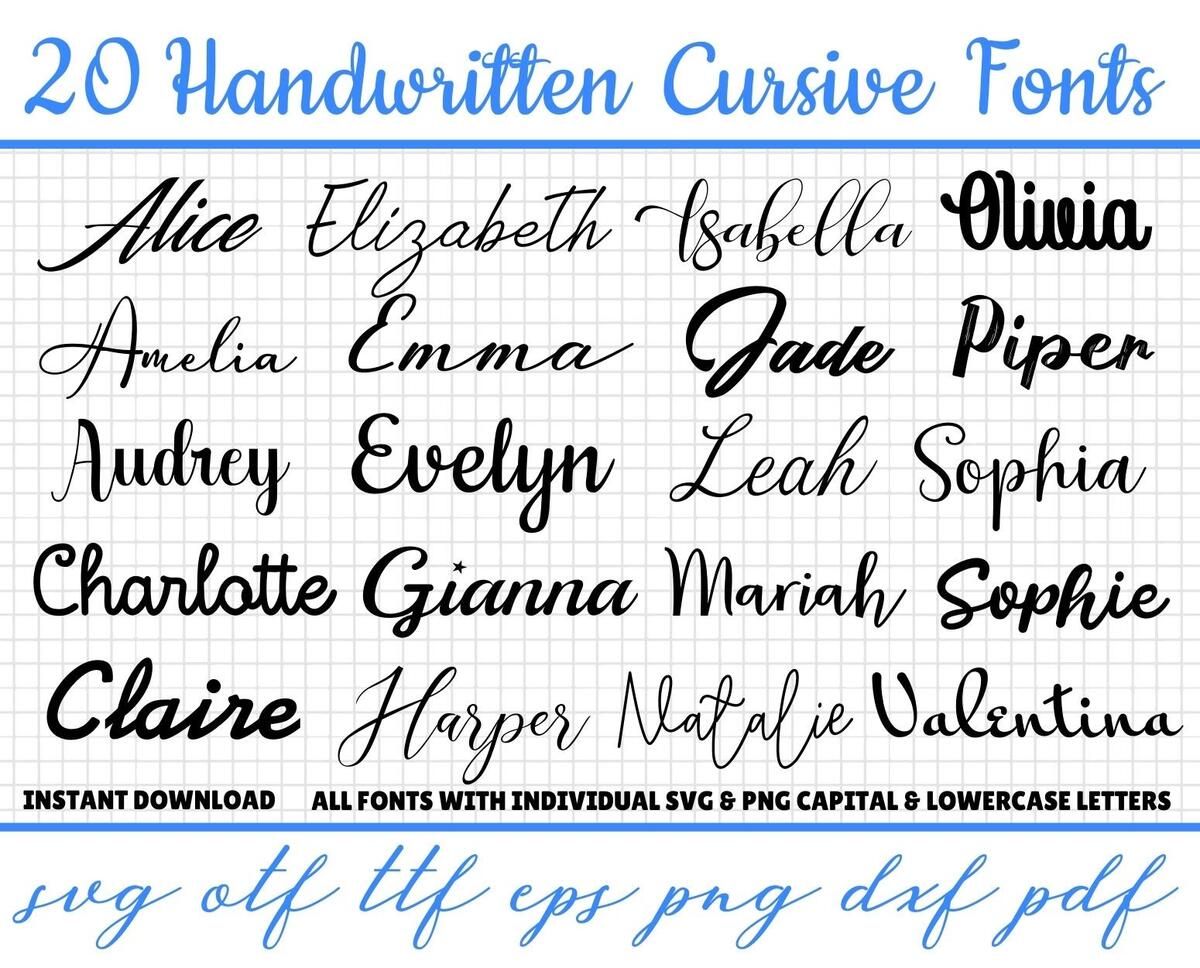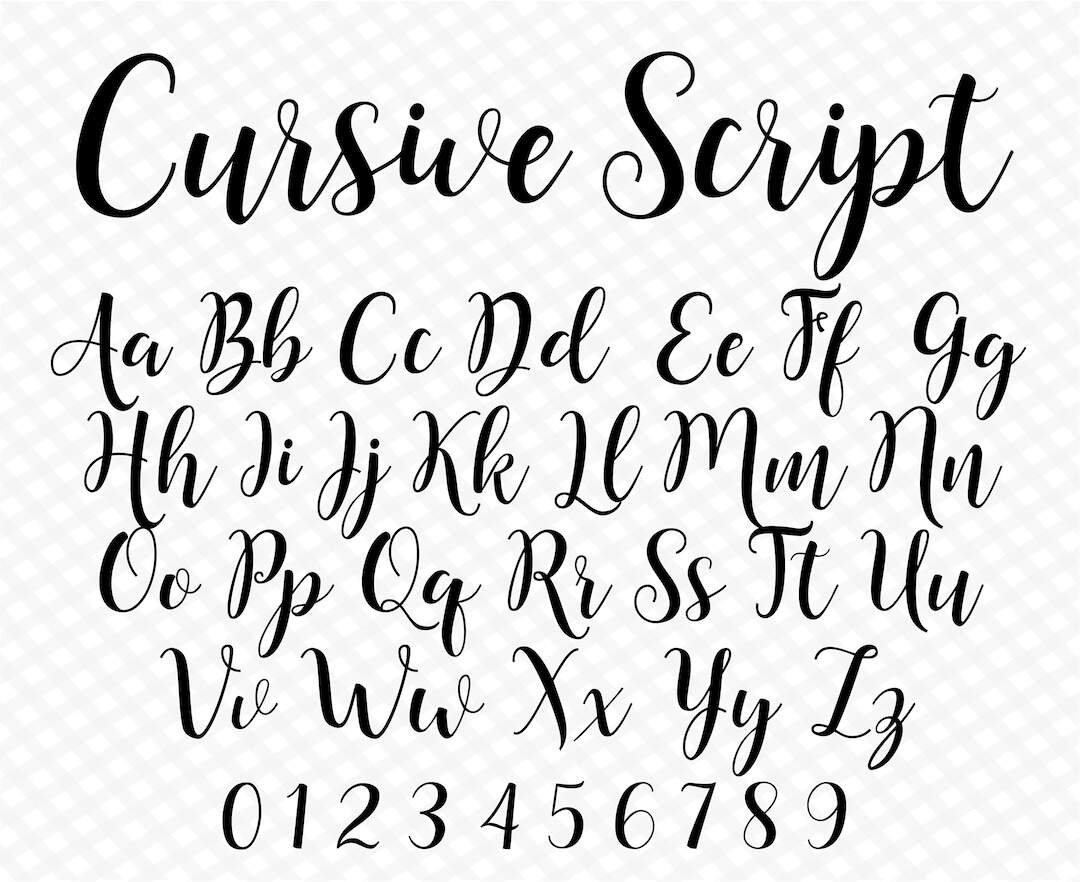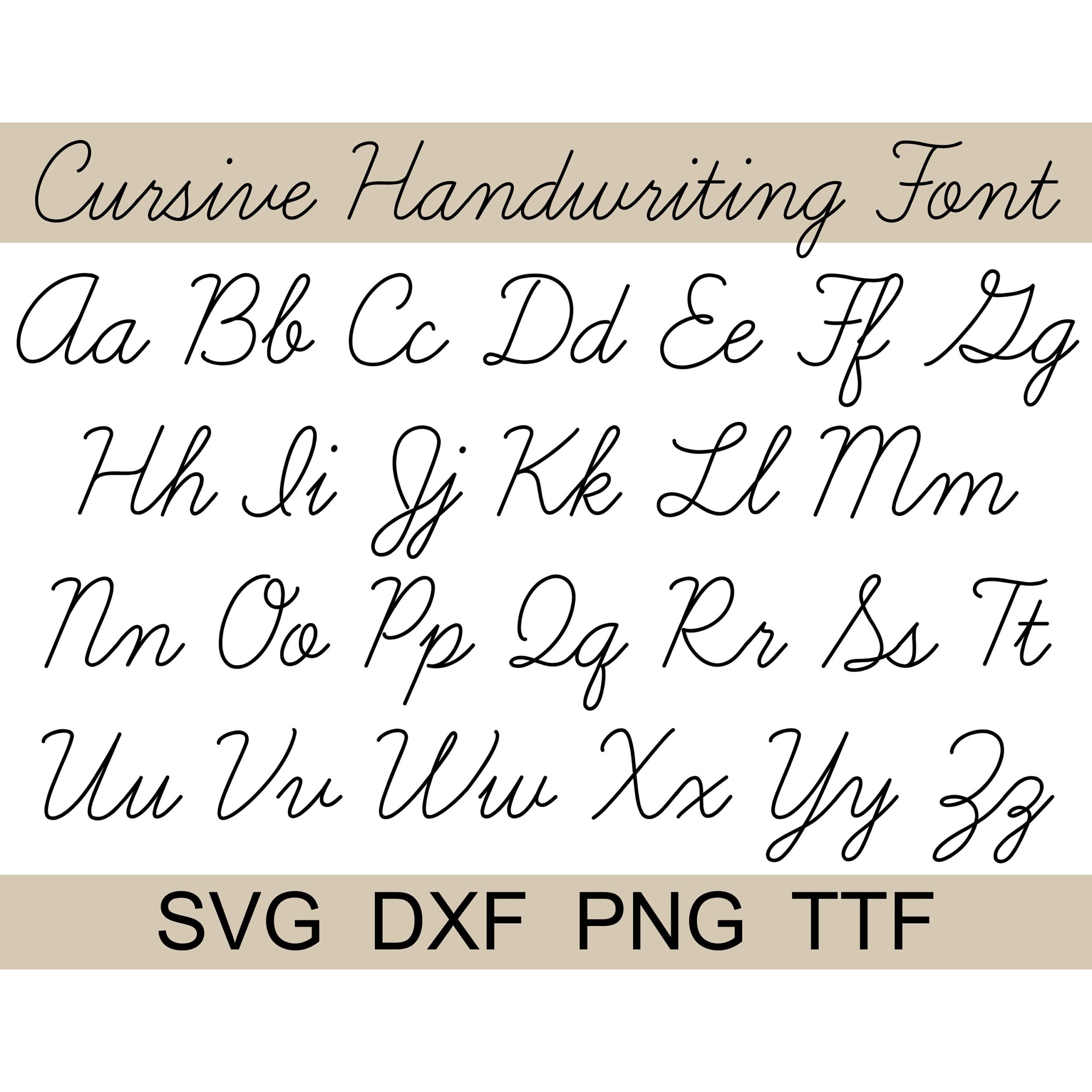
Cursive Letters Writing Fonts
Cursive letters writing fonts have been a staple of writing for centuries, and their beauty and elegance are still revered today. From the flowing loops of copperplate to the bold flourishes of brush script, cursive fonts add a touch of sophistication and whimsy to any written work. Whether you’re a student looking to improve your handwriting, a designer seeking to add a creative twist to your projects, or simply a writing enthusiast, cursive letters writing fonts are an excellent way to express yourself and add some visual interest to your writing.
In recent years, cursive letters writing fonts have experienced a resurgence in popularity, with many schools and educators recognizing the importance of teaching cursive writing skills to children. Not only does cursive writing help improve hand-eye coordination and fine motor skills, but it also enhances cognitive development and can even aid in the prevention of dyslexia. With the rise of digital technology, cursive fonts have also become increasingly popular in design and typography, with many designers incorporating cursive elements into their work to add a touch of elegance and sophistication.
What are Cursive Letters Writing Fonts?
Cursive letters writing fonts refer to a style of writing that involves connecting letters together in a flowing, continuous motion. This style of writing is characterized by its fluid, curved lines and looping connections between letters, which create a beautiful and elegant visual effect. Cursive fonts can be used in a variety of contexts, from formal documents and invitations to creative writing and art projects. With the right tools and techniques, anyone can learn to write in cursive and create beautiful, flowing scripts that add a touch of personality and style to their writing.
Benefits of Using Cursive Letters Writing Fonts
The benefits of using cursive letters writing fonts are numerous, and can have a significant impact on both cognitive and creative development. For children, learning to write in cursive can help improve their handwriting skills, enhance their fine motor control, and even aid in the development of literacy skills. For designers and artists, cursive fonts can add a touch of elegance and sophistication to their work, and can be used to create beautiful, eye-catching designs that capture the viewer’s attention. Whether you’re a student, a designer, or simply a writing enthusiast, cursive letters writing fonts are an excellent way to add some visual interest and creativity to your writing.
Tips for Mastering Cursive Letters Writing Fonts
Mastering the art of cursive letters writing fonts requires practice, patience, and dedication, but with the right techniques and tools, anyone can learn to write in cursive. One of the most important tips for mastering cursive is to start with the basics, practicing simple strokes and letterforms before moving on to more complex scripts. It’s also important to choose the right tools, such as a fountain pen or a brush pen, which can help create smooth, flowing lines and connections between letters. With consistent practice and a willingness to learn, anyone can become proficient in cursive writing and create beautiful, elegant scripts that add a touch of personality and style to their writing.
In addition to practicing the basics and choosing the right tools, there are several other tips and techniques that can help you master the art of cursive letters writing fonts. One of the most important is to pay attention to letter spacing and connections, making sure that each letter flows smoothly into the next. It’s also important to experiment with different styles and scripts, finding the one that works best for you and your writing needs. With patience, practice, and dedication, you can master the art of cursive letters writing fonts and create beautiful, elegant scripts that add a touch of sophistication and whimsy to your writing.